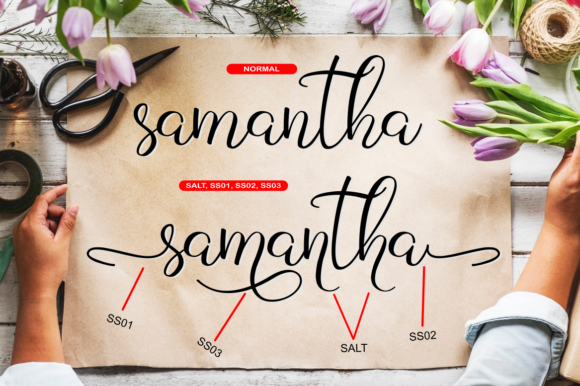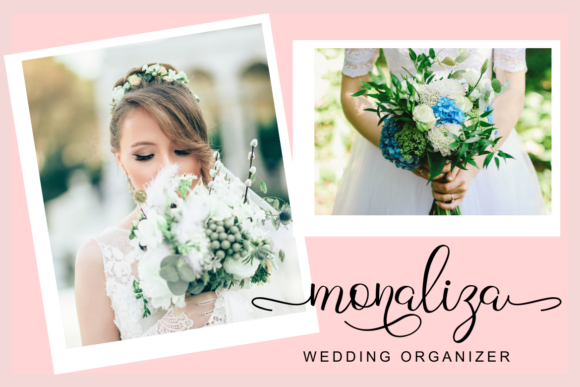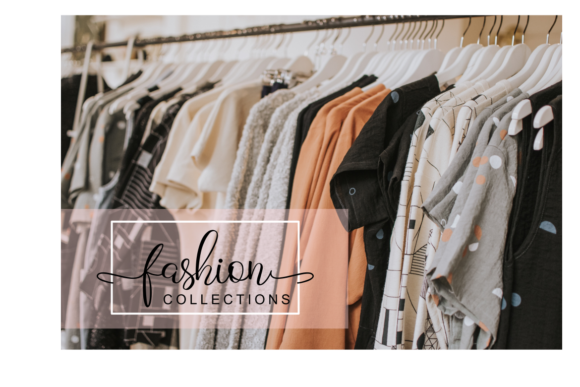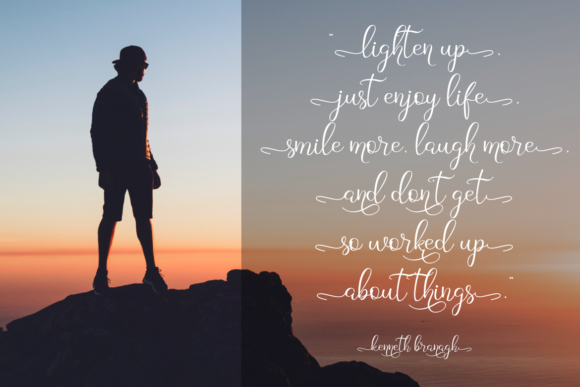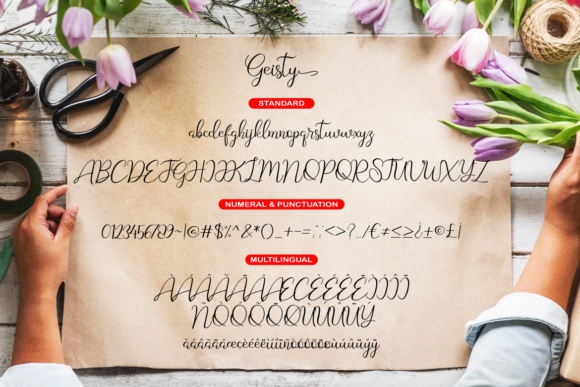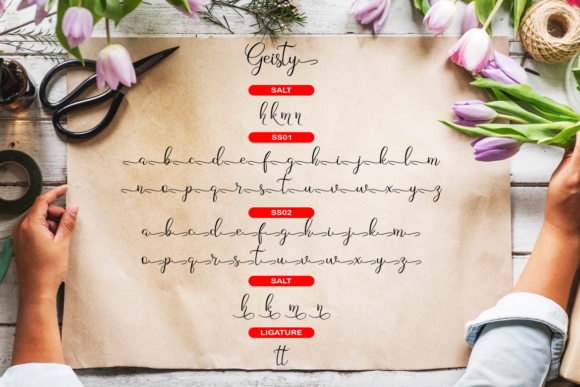
Introduction to Geisty Font
The Geisty is a stylish modern calligraphy script font.
It has a personal touch which will add an amazing look to your designs It’s perfect for branding projects, logos, wedding designs, social media posts, advertisements, product packaging, product designs, label, photography, quotes, watermarks, invitations, stationery and any other project that needs a handwriting feel.